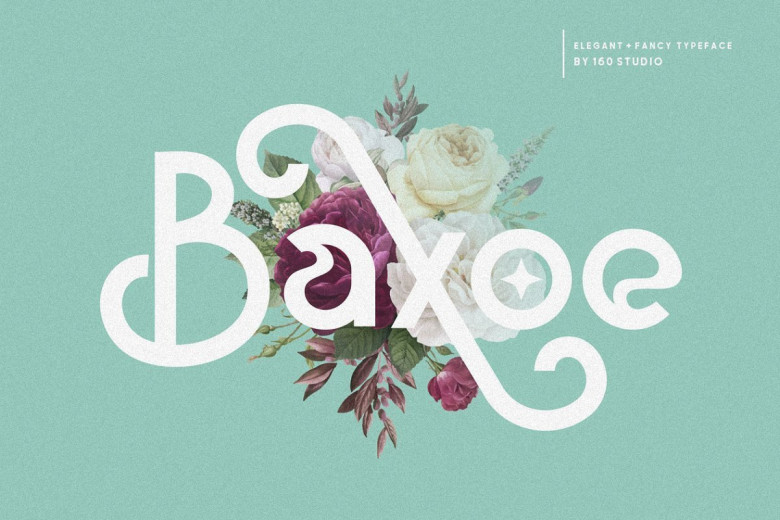
Baxoe Sans Fancy Typeface
Elegant Sans and Fancy Typeface! it can be simple and complex unique, because it have tons of alternate characters. This font is suitable for use in many design forms, for example magazines, postcards, logos, DIY Projects, invitation card, quotes, wedding projects and much more. We recommend using Adobe Illustrator or Photoshop.